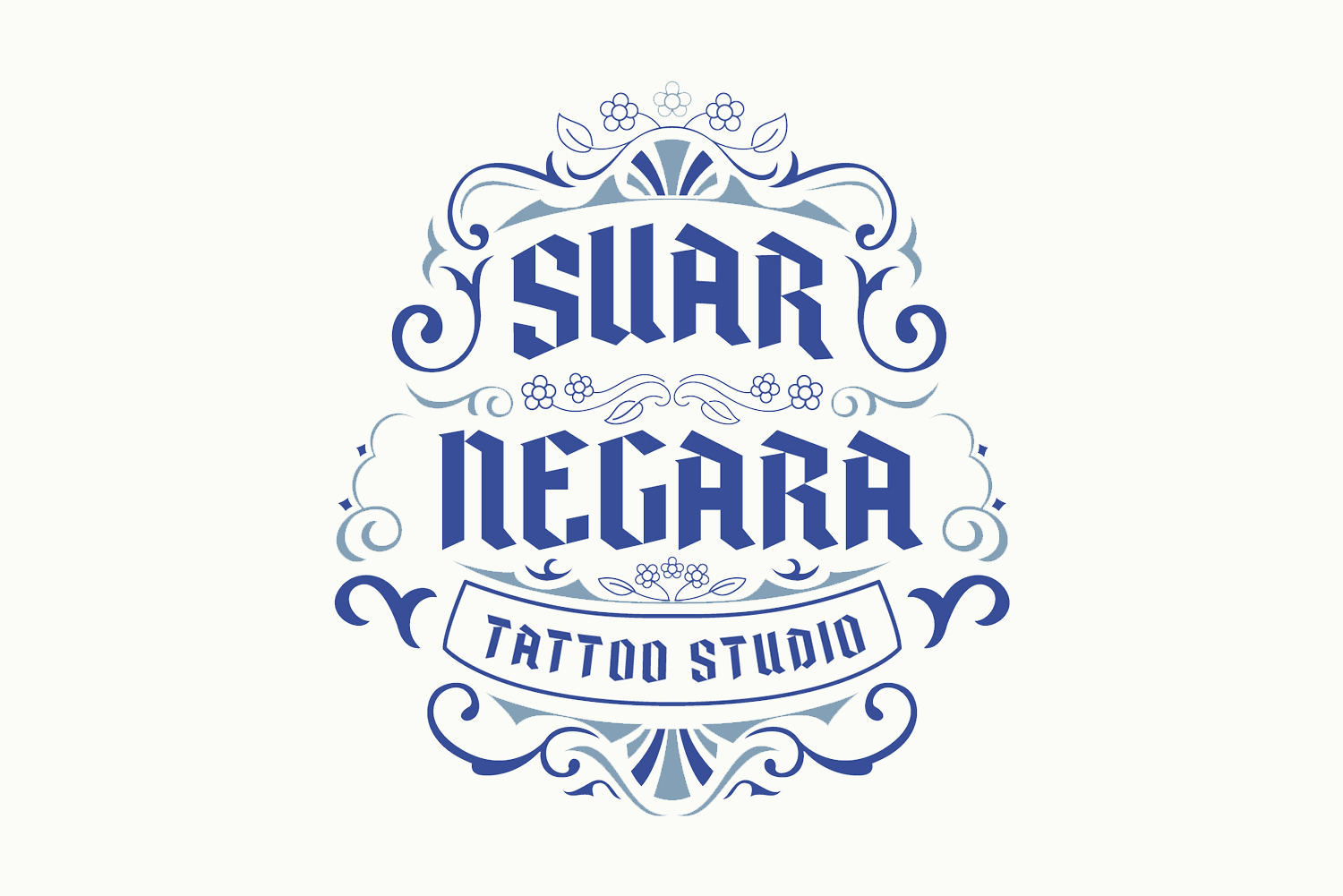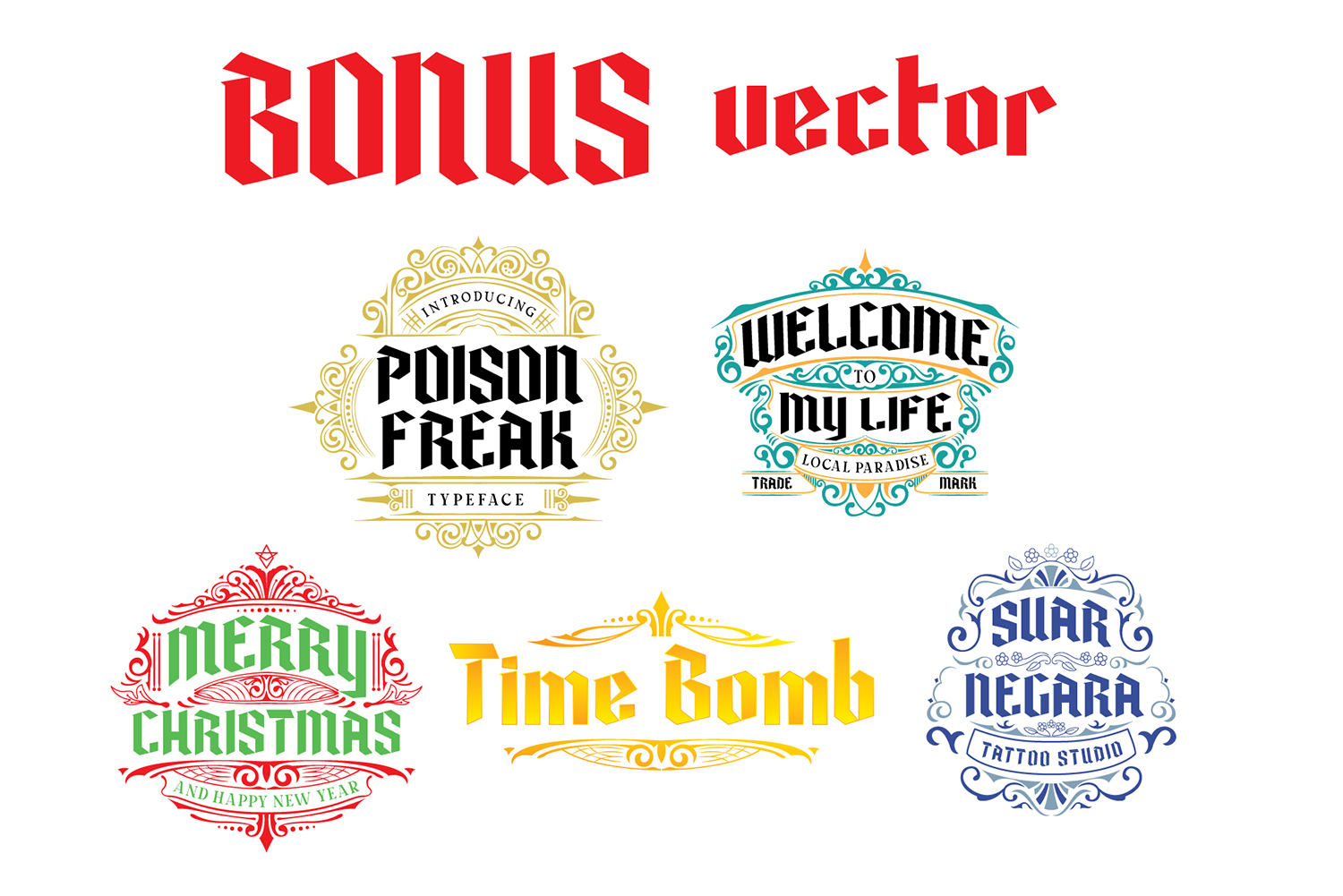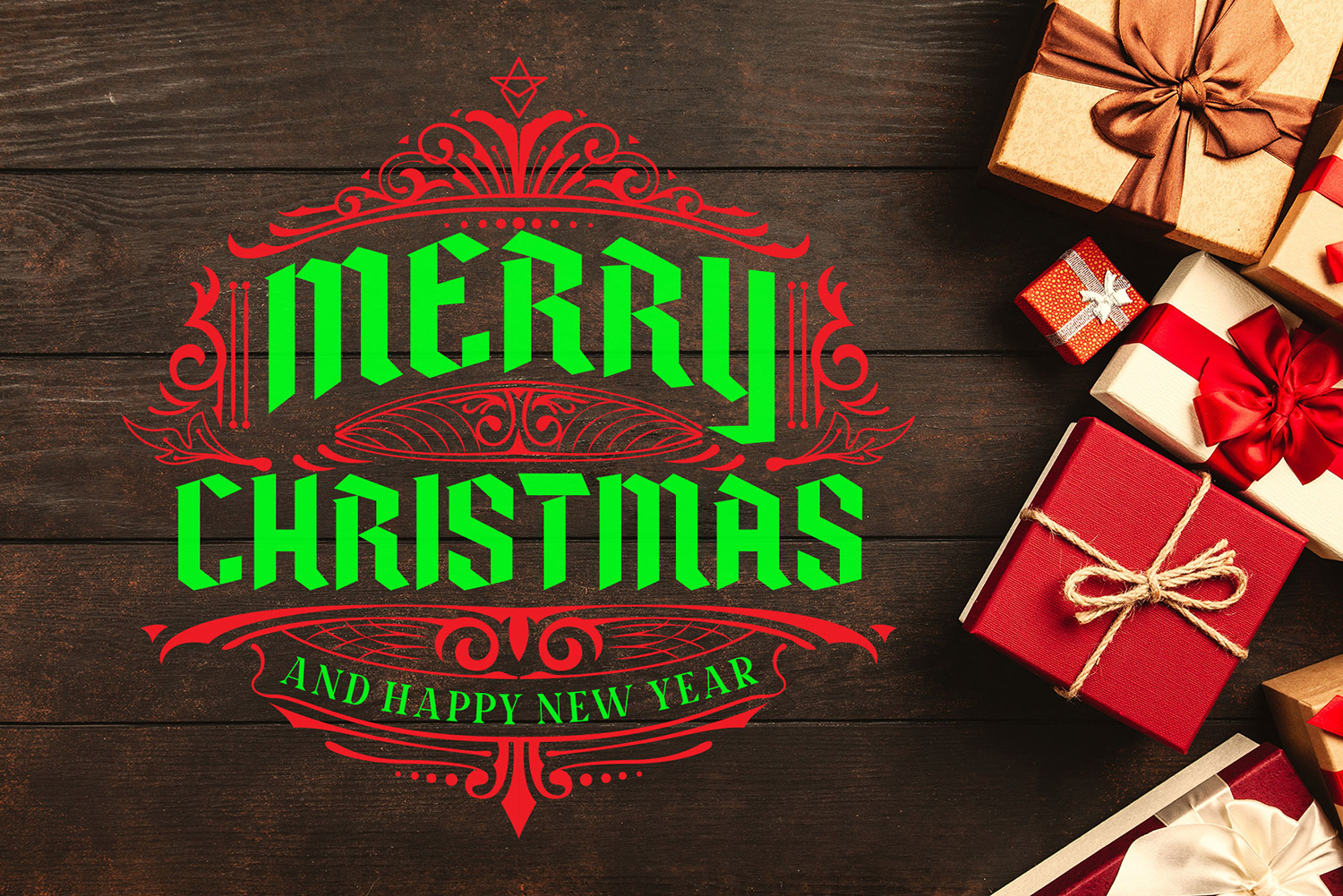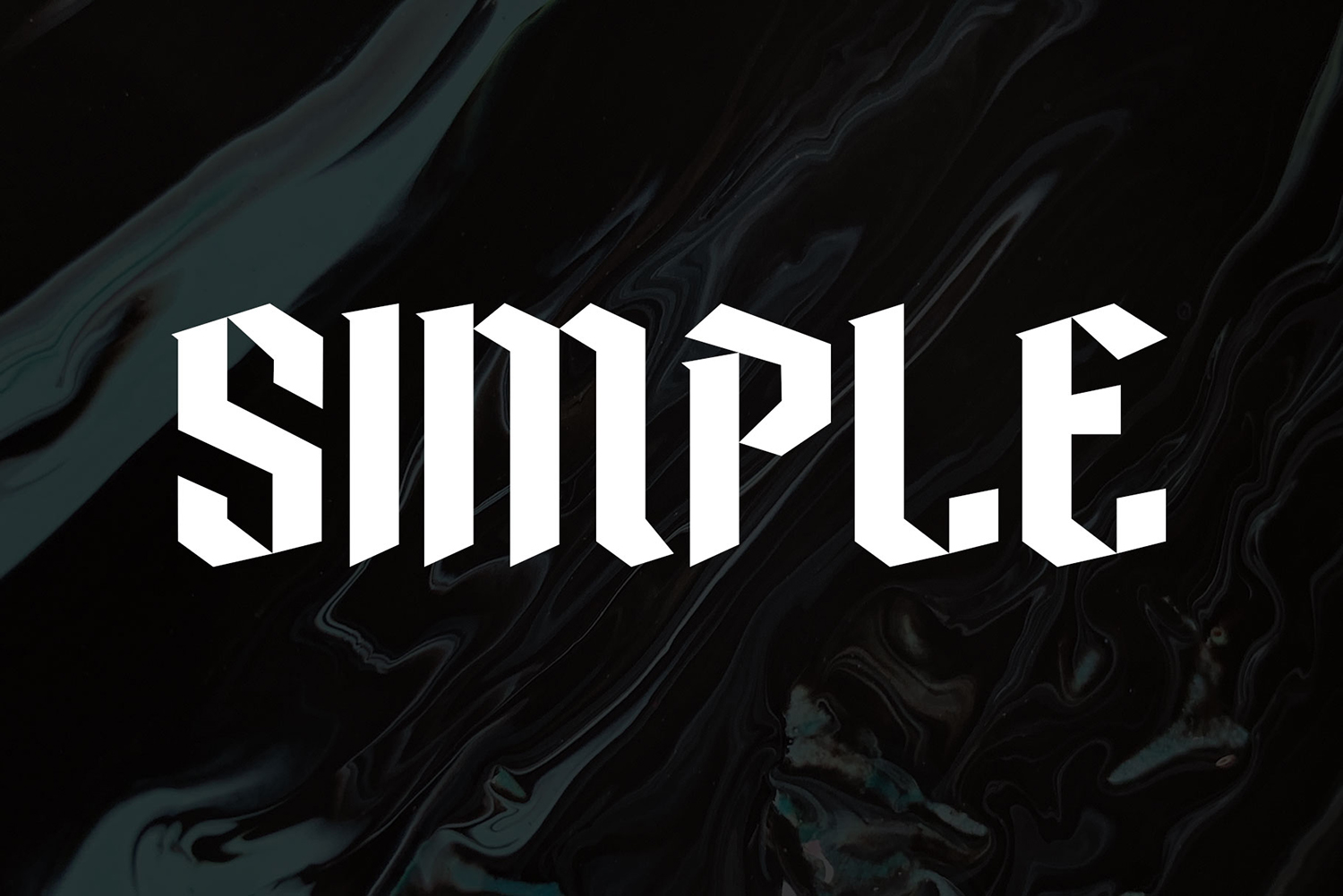
Poison Freak Free Font
Poison Freak Free Font is inspired by the old gothic style of writing which is commonly known as the Black letter style. But the Poison Freak typeface is made with a simpler and more modern touch to fit into a younger and cooler design. The Poison Freak typeface is very suitable for design themed with gothic, vintage, rock designs and for whiskey packaging designs. This free typeface was designed by a talented Alit Suarnegara. If you like it don’t forget to check out the full version.